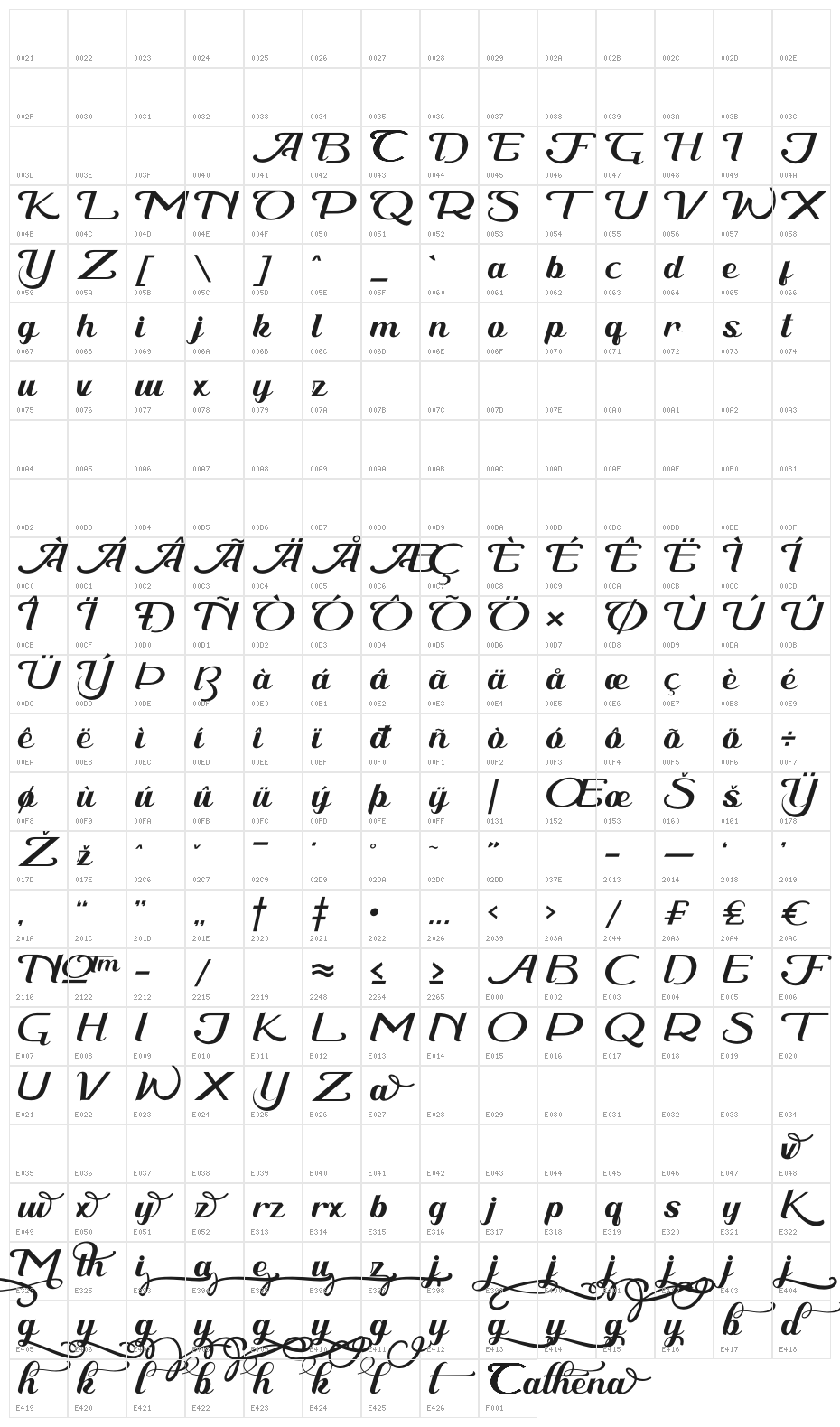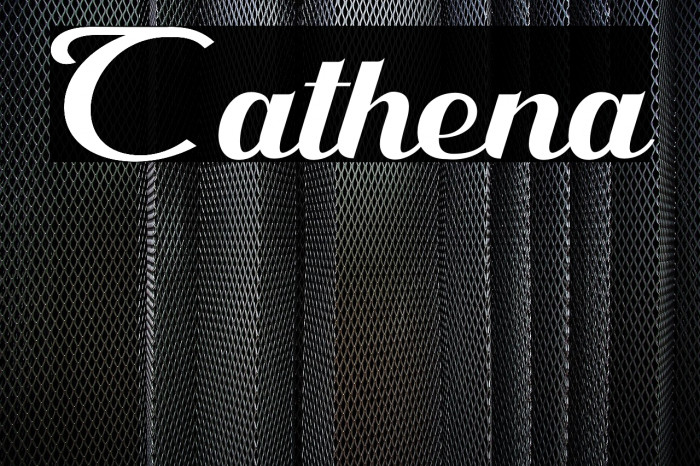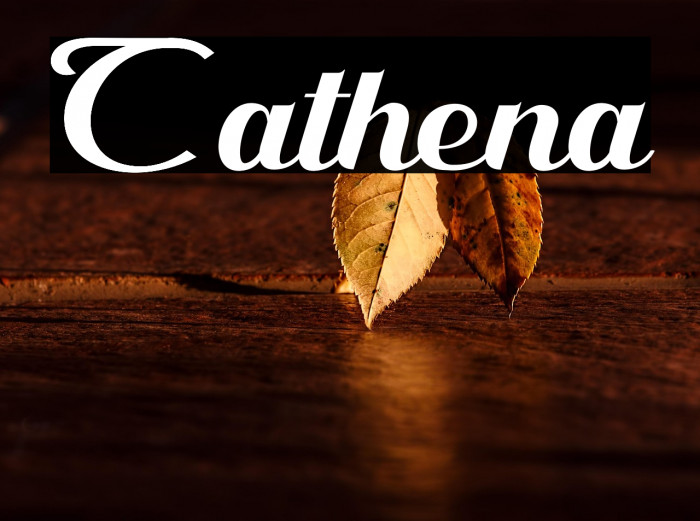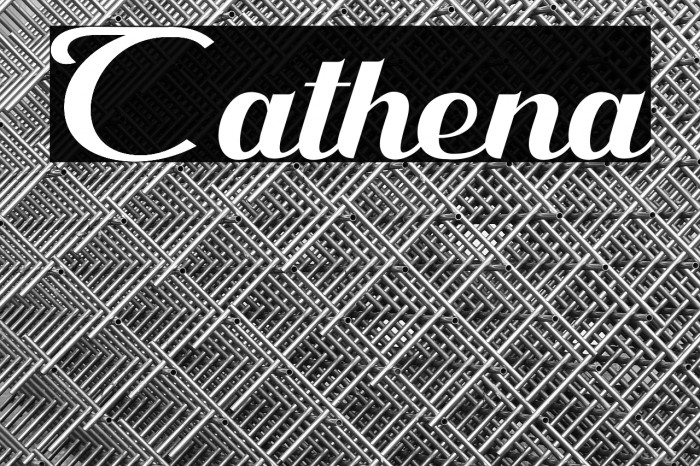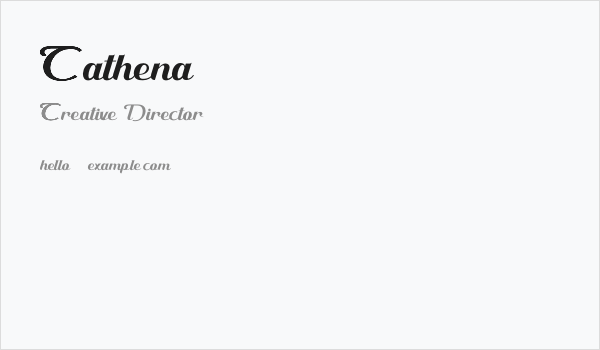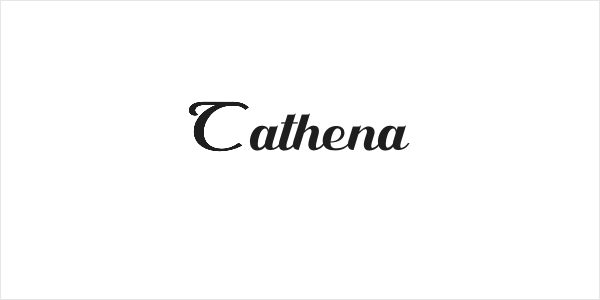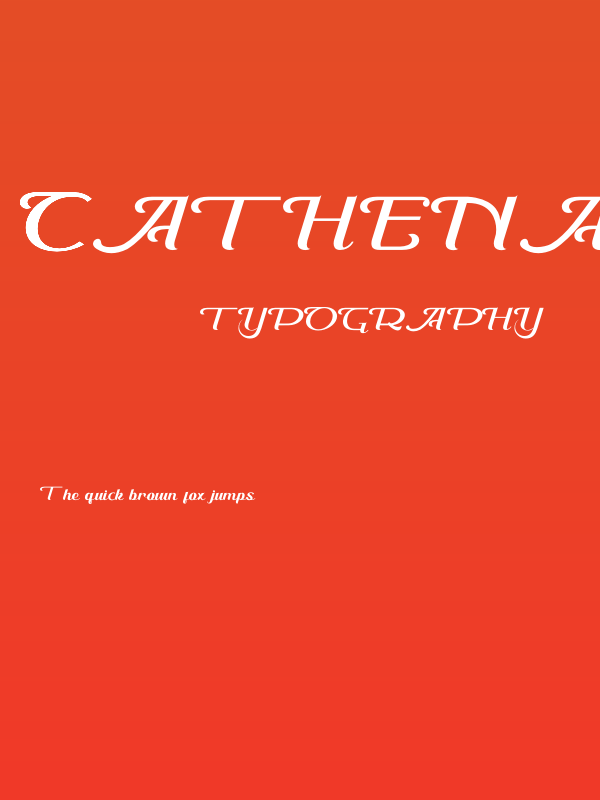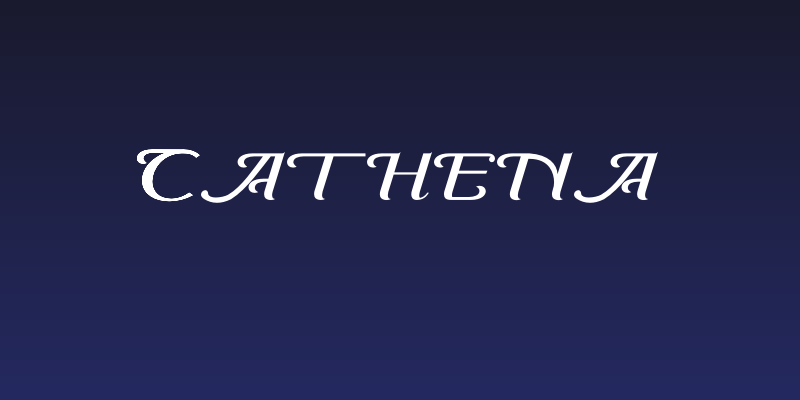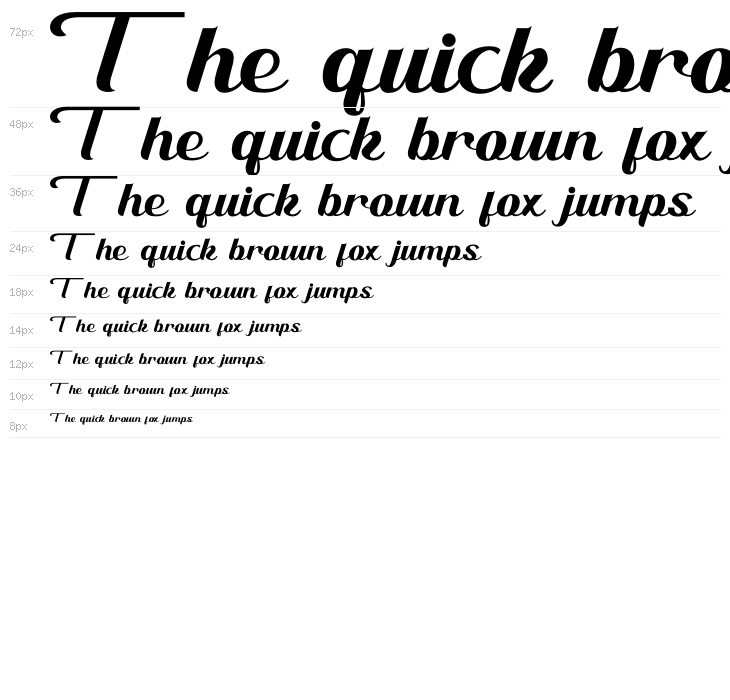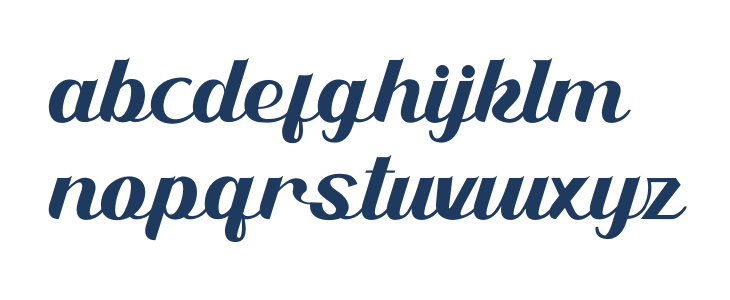
Cathena Font
Cathena Description
This font features a sophisticated and elegant script style with a flowing, cursive design. The uppercase letters exhibit a graceful, connected form with subtle flourishes, while the lowercase letters maintain a smooth, continuous stroke that enhances readability. The font's overall appearance is both classic and modern, making it versatile for various design applications. The characters are well-balanced, with a slight slant that adds a dynamic feel. The numerals and special characters are consistent with the font's elegant style, ensuring a cohesive look across all text elements.
| Proposed Projects | Ideal for wedding invitations, elegant branding, greeting cards, and upscale packaging design. |